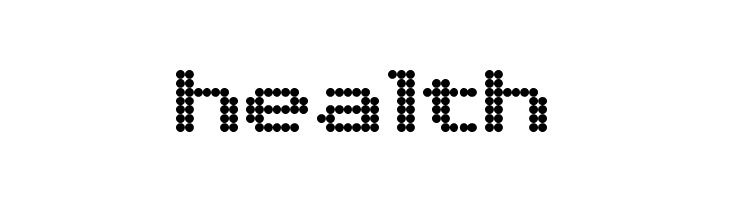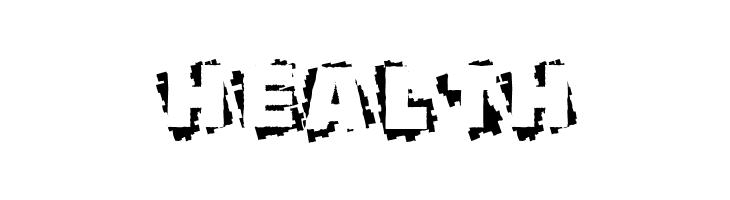
A futuristic, geometric font with bold lines and rounded edges.
A bold, futuristic font with geometric shapes and clean lines.
A bold, italicized font with a modern, geometric style.
A pixelated, retro-style font with a bold, geometric design.
A bold, geometric font with a modern, digital aesthetic.
A dot matrix style font with a retro digital display appearance.
A pixelated, retro-style font inspired by vintage digital displays.
A bold, futuristic font with sharp angles and geometric shapes.
A bold, distressed font with a scratch-like texture, perfect for dynamic and edgy designs.
A pixelated, vertical scan line font with a digital, retro aesthetic.